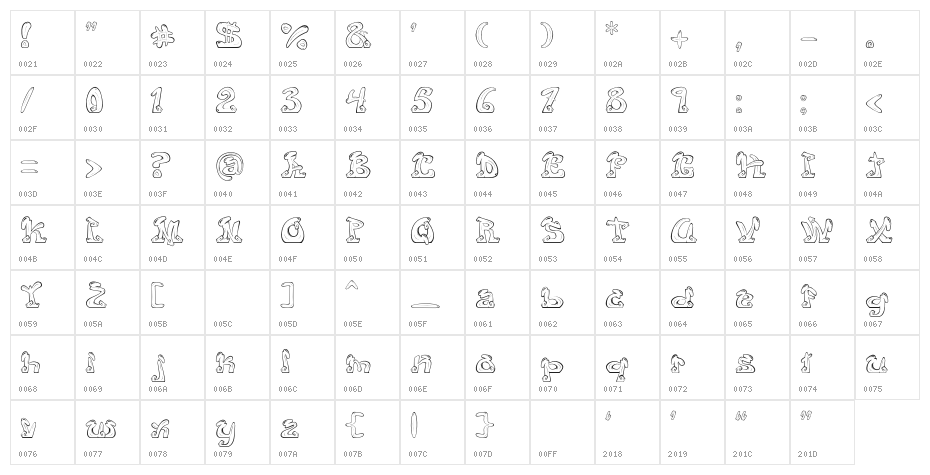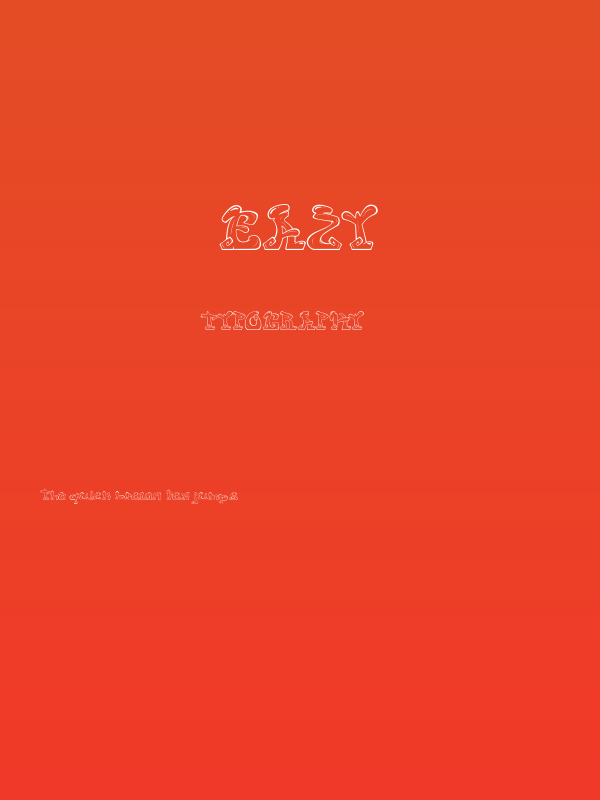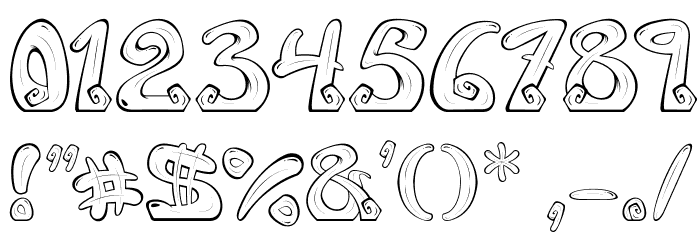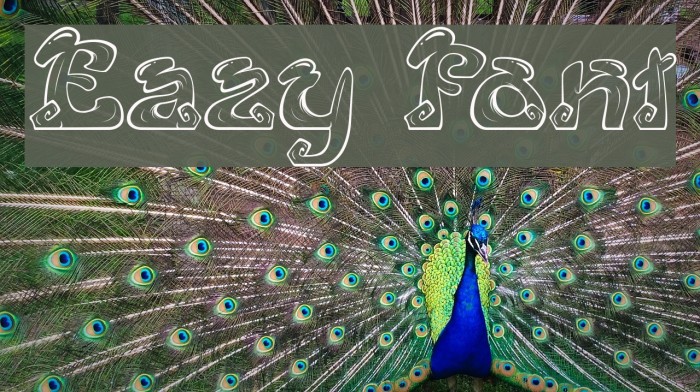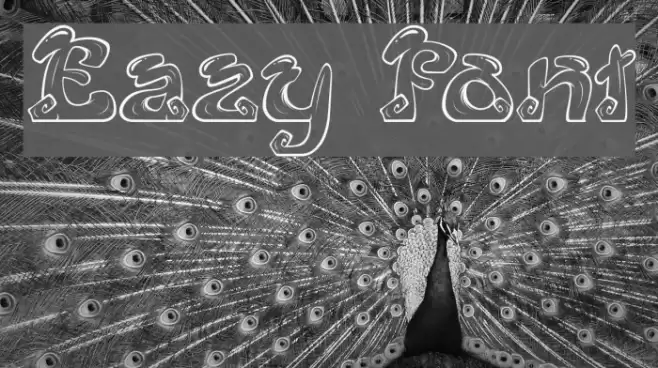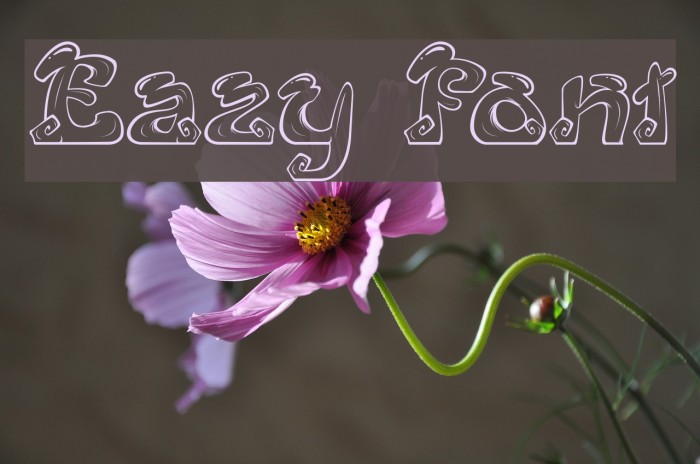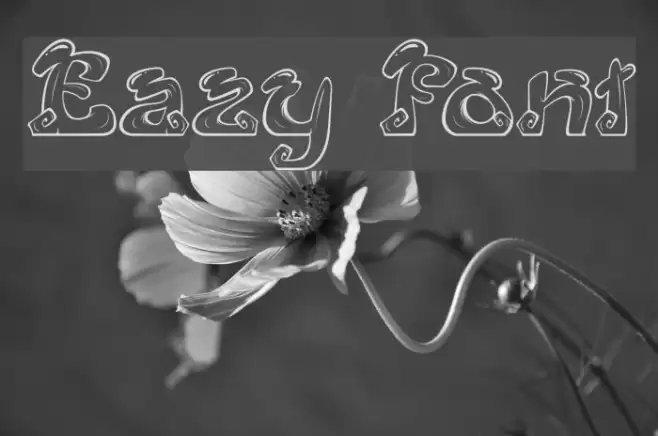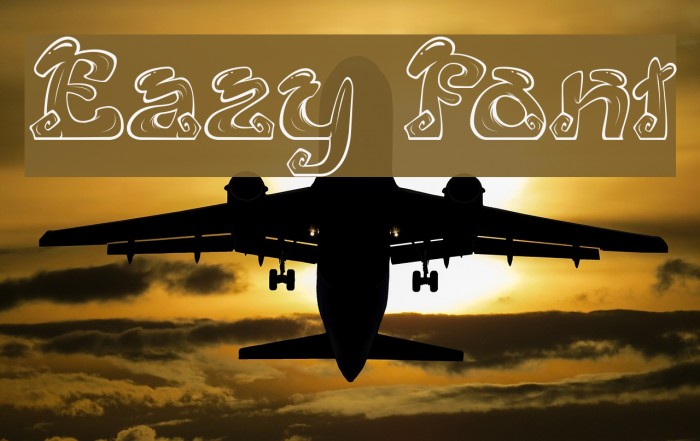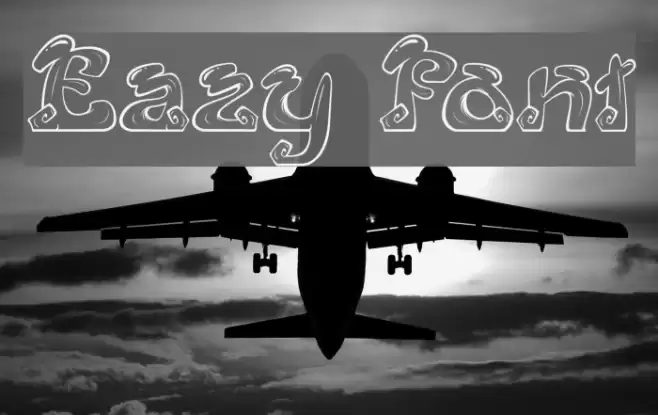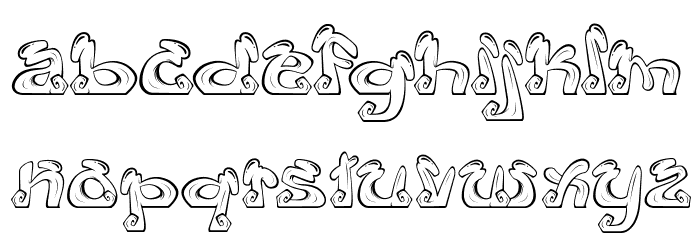
Eazy Font
✎ Graffiti
| 全体的なスタイル | Playful, Whimsical |
| おすすめプロジェクト | Ideal for children's book covers, playful branding, posters, and creative invitations. |